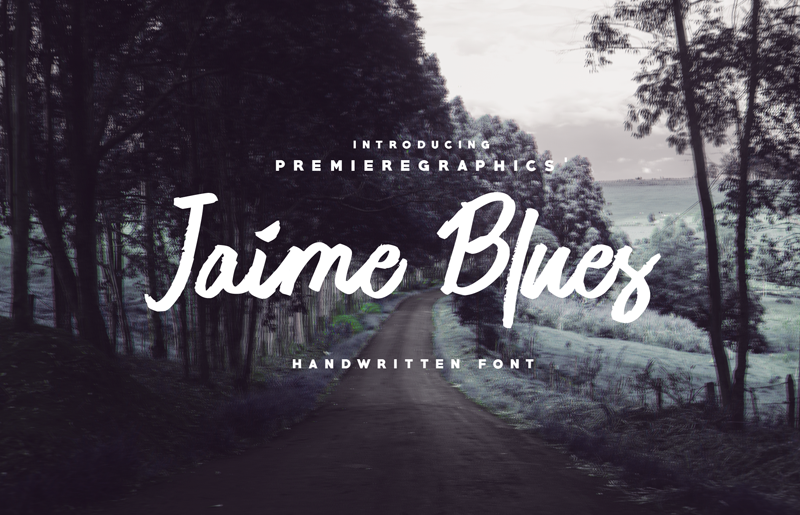
Jaime Blues Font
We always want to introduce you to the best fons, and today too, it is a brush font, you will be very pleased to use it for your new product. Introducing Jaime Blues Font. Jaime Blues designed and shared by Premiere Graphics. Jaime Blues is a modern handwritten sans font that perfectly complements the main font. Use it for showing hierarchy in your design or mix and match to make something really creative. Ideal for a logo, a name tag, handwritten quotations, product packaging, goods, social media and greeting cards.